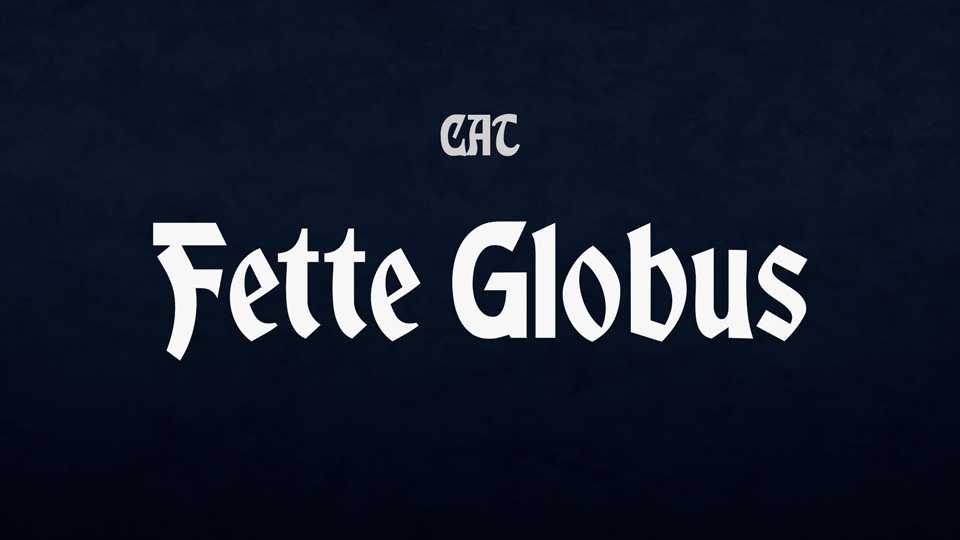
Download Flette Globus font, a blackletter typeface with clean and sharp letterforms, based on the type released by Woellmer foundry in 1898. Flette Globus font retains the powerful charisma of its medieval blackletter ancestors.